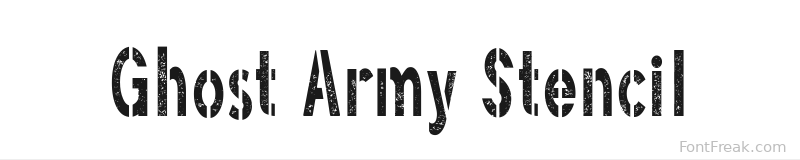
Ghost Army Stencil
About Ghost Army Stencil
Ghost Army Stencil is a striking display typeface designed by Galdino Otten Fonts, characterized by its unique stencil style. This font features bold, block-like letterforms that convey a sense of military robustness, making it visually appealing for projects that require a strong and impactful presence. The strokes are uniform in weight, providing a sturdy appearance, while the subtle wear and distressed effects add a layer of character and authenticity to each letter. The ample spacing between characters enhances readability, making it suitable for both print and digital applications.
Ideal for a variety of creative projects, the Ghost Army Stencil font is perfect for military-themed designs, event posters, and promotional materials. Its bold nature makes it an excellent choice for headlines and titles in magazines, product packaging, and even clothing designs. Graphic designers looking to evoke a sense of nostalgia or ruggedness will find this font particularly useful for creating visually compelling compositions. Small business owners can leverage its distinctive style for branding, while content creators may use it to enhance the visual appeal of their digital content.
Targeting a diverse audience, from seasoned graphic designers to small business owners and content creators, the Ghost Army Stencil font free download offers versatility and a unique aesthetic that can elevate any design project. This font stands out not only for its distinctive stencil appearance but also for its ability to convey a strong message with simplicity. Whether used in a military context or for artistic expression, it offers a unique blend of strength and style that makes it an essential addition to any designer's toolkit.